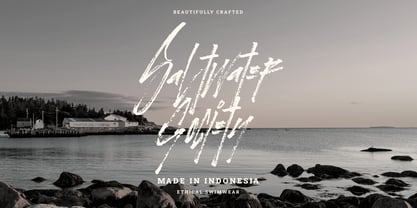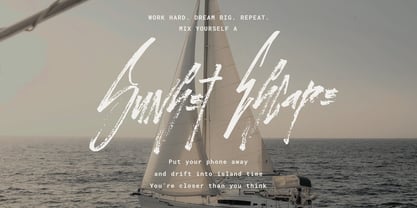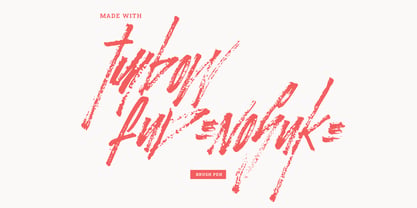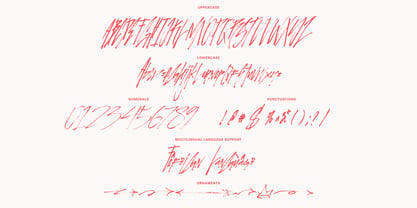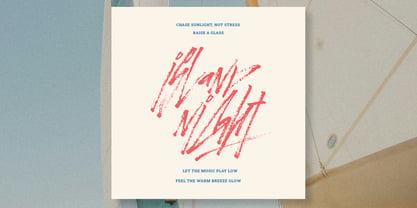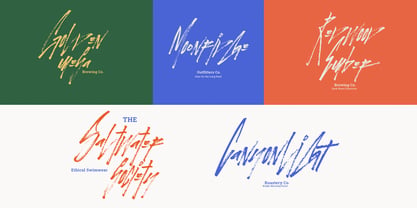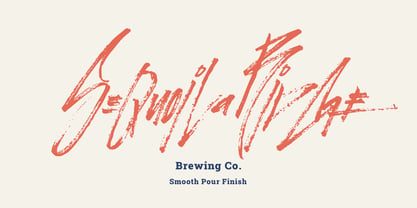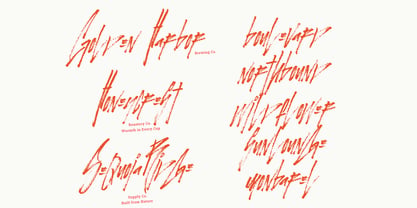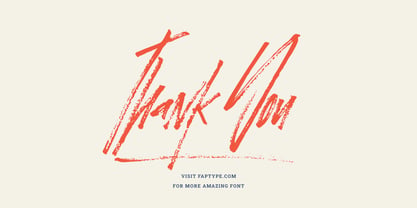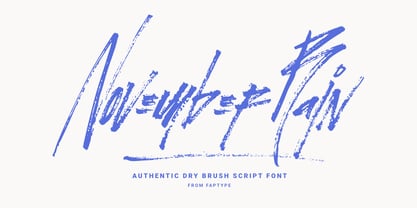
November Rain Brush
by Ferry Ardana Putra
The November Rain Brush Font Family was designed by Ferry Ardana Putra and published by Ferry Ardana Putra. November Rain Brush contains 1 styles. More about this family
November Rain is an expressive dry brush script font, carefully handcrafted using a Tombow Fudenosuke brush pen to capture real ink texture, pressure, and natural stroke movement. Every letter was written manually, preserving the raw energy and organic rhythm that only true hand lettering can deliver. This font brings a bold, emotional, and gritty brush feel—perfect for designs that need personality, attitude, and authentic handmade character. Unlike digital brush simulations, November Rain carries real bristle texture, ink breaks, and natural inconsistencies from the pen, making your typography feel alive and dynamic. What makes November Rain special? Handwritten manually using Tombow Fudenosuke Real dry brush texture with natural ink pressure Strong personality with expressive strokes Perfect balance between readable script and wild brush energy Ideal for bold, artistic, and attention-grabbing typography   Perfect for November Rain works beautifully for: Music posters & album covers Streetwear & apparel branding Social media quotes & thumbnails Logo design with raw personality Packaging design YouTube thumbnails Poster typography Merchandise design Urban, grash, and expressive branding Authentic Brush Character Because this font was created with a real brush pen, you’ll notice: Ink texture variations Rough edges and dry strokes Natural pressure transitions Organic brush rhythm These details give your design a handcrafted aesthetic that cannot be replicated by vector-generated brush fonts. Features of November Rain Font Uppercase & lowercase letters Numbers & punctuation Multilingual support PUA-encoded characters OpenType features 307+ glyphs November Rain swashes included